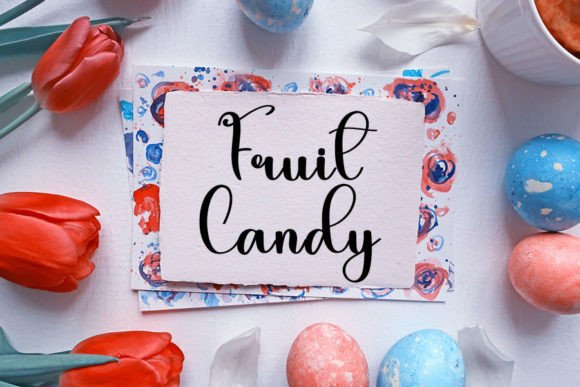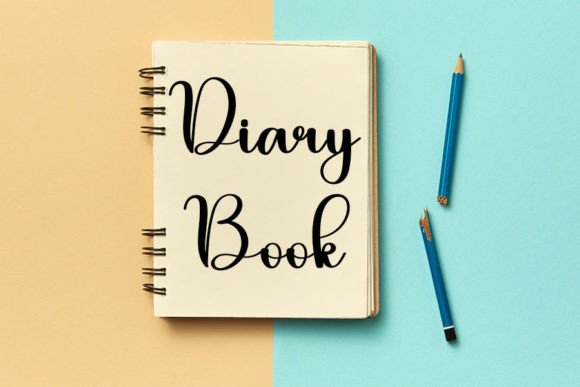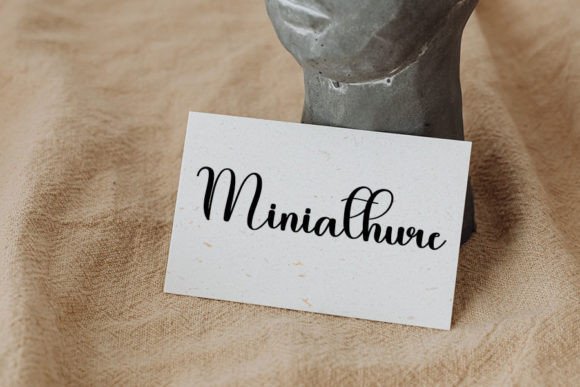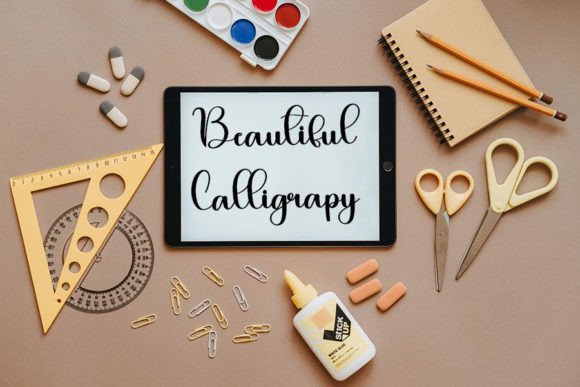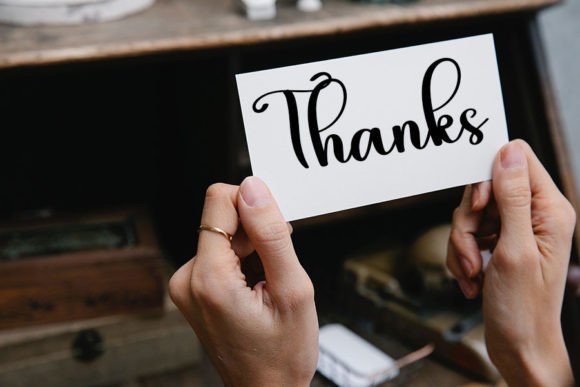
Child Font
About Child Font
“Child” is a sweet and beautiful handwritten font characterized by characters that gracefully dance along the baseline. This font exudes a sense of elegance and luxury, making it an excellent choice for enhancing the visual appeal of your design projects.
One of the standout features of “Child” is its ability to convey a sense of beauty and grace. The font’s characters possess a delicate and luxurious quality that adds a touch of refinement to your designs. “Child” is a versatile choice for projects where you want to create a sense of elegance and sophistication.
The flexibility of “Child” ensures that it can be effectively used across various creative applications. Whether you’re designing elegant branding materials, crafting high-end invitations, creating luxurious typography for quotes and poetry, or exploring any other design project that demands a touch of luxury and beauty, “Child” adapts seamlessly to your creative vision.
“Child” stands out as a font that brings a sense of authenticity and luxury to your designs. Its handwritten style, with characters dancing along the baseline, adds an artistic and captivating touch to your projects, making them feel both luxurious and inviting. The inclusion of PUA encoding provides easy access to a wide range of glyphs and swashes, offering you the creative freedom to explore various design possibilities.
Incorporating “Child” into your design projects will likely result in outcomes that are not only beautiful but also full of luxury and refinement. Its unique charm and elegant appearance make it an excellent choice for creating designs that exude sophistication and beauty. Embrace the beauty and luxury of “Child” in your next project, and watch as it elevates your typography and overall design to a level of artistry that captures attention and admiration.